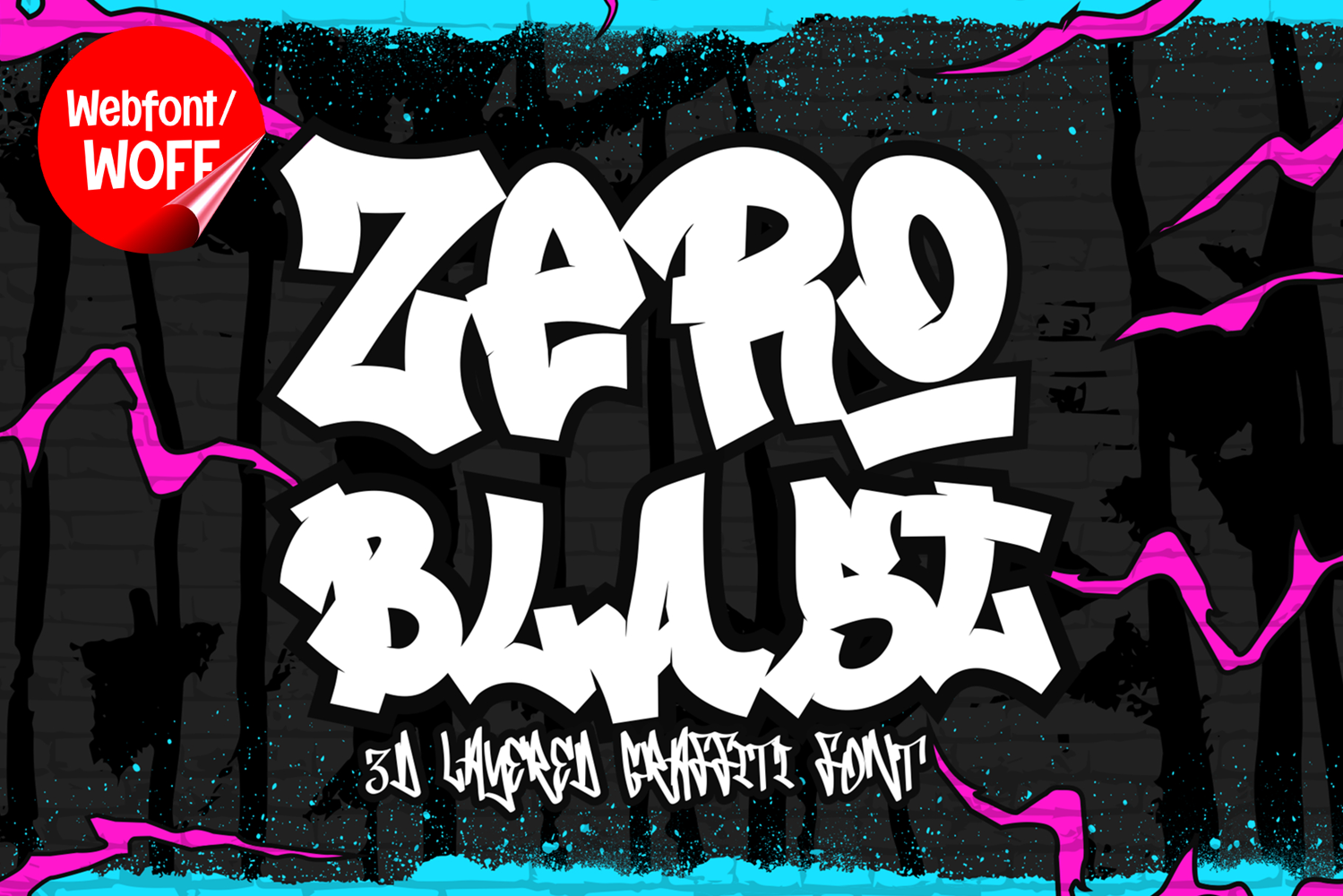
Zero Blast | Bold Handwritten Graffiti Webfont for Urban
Zero Blast is a bold handwritten graffiti webfont designed to bring authentic street culture and expressive urban energy into modern website design. Inspired by freestyle graffiti tags, marker lettering, and underground street art, this font features bold handwritten strokes and dynamic movement that create a strong and eye-catching visual identity. It is an excellent choice for projects that aim to deliver edgy urban aesthetics with a raw and creative street-style appearance.
Zero Blast includes a complete set of uppercase characters designed with bold handwritten graffiti aesthetics. The letterforms feature energetic curves, expressive strokes, and natural handwritten flow that create an authentic street-art appearance. These characteristics make it ideal for headlines, banners, hero sections, promotional graphics, and featured content where strong urban visuals are needed.
In addition to letters, the font includes numbers and punctuation, allowing flexible usage across various parts of a website. It works well for streetwear branding, gaming websites, music platforms, hip hop projects, esports graphics, and creative portfolios. Each character maintains a consistent handwritten graffiti style, ensuring a cohesive and unified visual identity throughout the design.
With multilingual support, Zero Blast includes a wide range of accented characters, making it suitable for international websites and global audiences. This ensures content remains clear and visually consistent across different languages while preserving the expressive and urban graffiti aesthetic.
The bold handwritten graffiti style of Zero Blast makes it especially suitable for urban-themed websites, entertainment campaigns, youth-oriented branding, and creative digital projects. Its energetic appearance and flowing handwritten structure create a powerful street-art atmosphere that helps websites stand out in visually competitive environments. The bold strokes add movement, intensity, and authentic graffiti character.
Despite its decorative and expressive appearance, Zero Blast is designed with readability in mind. The spacing and proportions are carefully balanced to ensure clarity, particularly in display sizes. This allows designers to use the font effectively for impactful headings and short content without sacrificing usability.
Zero Blast is a webfont that combines handwritten graffiti aesthetics with modern digital performance. Its bold forms, expressive movement, and urban character create a distinctive typographic presence that enhances website design. For projects that require a strong, creative, and visually engaging graffiti font, Zero Blast offers a versatile and powerful solution.